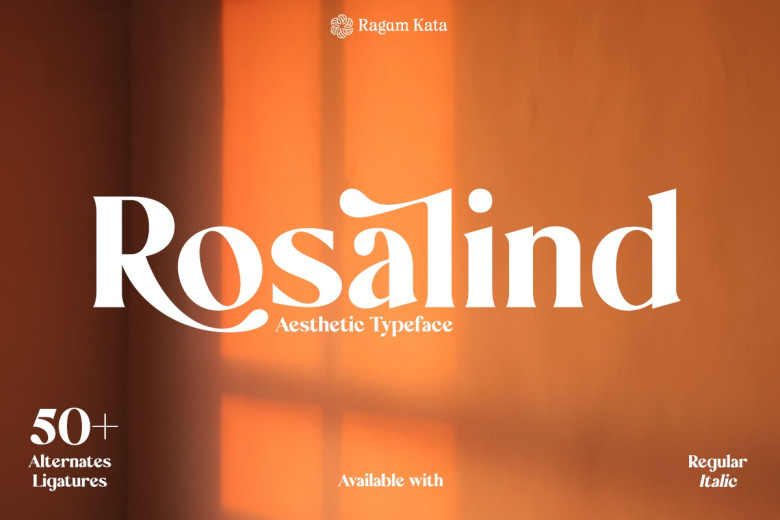
Rosalind Font
Rosalind Aesthetic Font is an elegant modern retro Serif typeface which seamlessly combines aesthetic appeal with attractive alternate characters, giving this font its eye-catching retro appeal. Rosalind is highly legible and readable making it the perfect font choice for branding projects, packaging design projects, editorial designs or any creative endeavor that necessitates retro serif fonts such as editorial designs.
Rosalind Aesthetic Serif Font